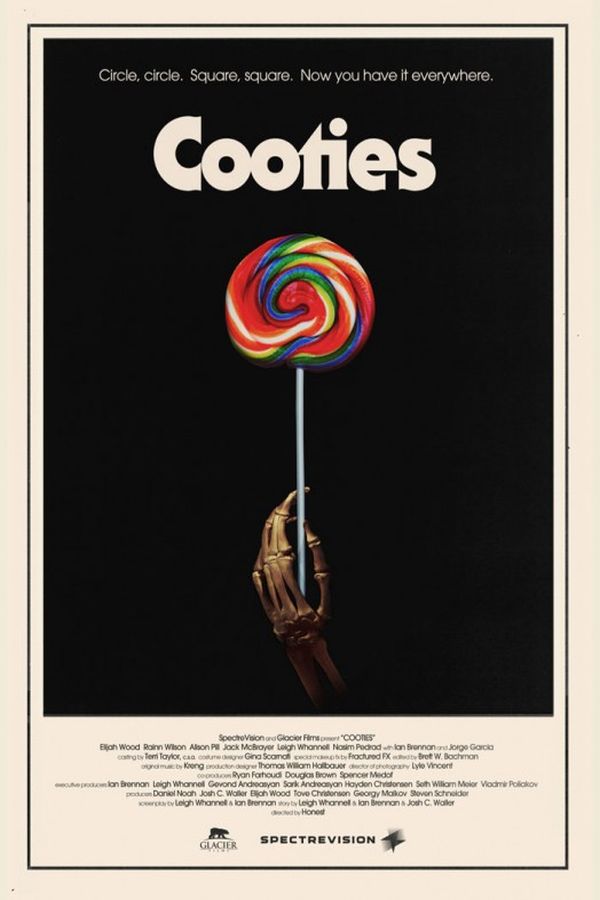
Cooties Font
The Cooties title font is likely ITC Serif Gothic, a geometric typeface with small serifs that serve as decoration. For more information on the font, check here.